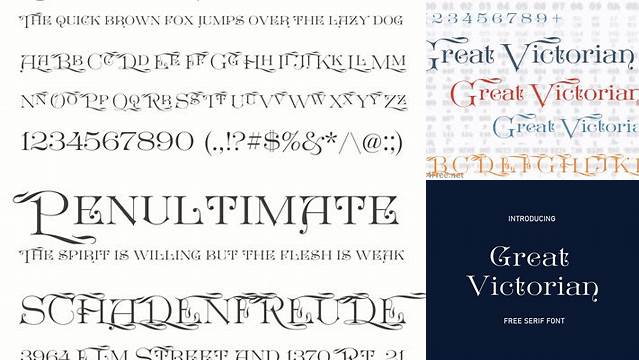
Victorian Font: Free Downloads For Your Designs
Hey guys! Are you looking to add a touch of vintage elegance to your projects? Look no further! The world of Victorian fonts is rich with ornate details and timeless charm. In this article, we'll dive deep into where you can find great Victorian fonts for free download, how to use them effectively, and explore the history and characteristics that make them so captivating. So, grab your tea, settle in, and let’s get started!
1. Understanding the Victorian Font Style
Victorian fonts, with their elaborate flourishes and intricate designs, are a hallmark of the Victorian era (1837-1901). To truly appreciate and effectively use Victorian fonts, it's crucial to understand their origins and stylistic characteristics. These fonts weren't just about looking fancy; they were a reflection of the era's values – a time of industrial progress, social change, and artistic innovation. The Victorian era was all about embellishment and grandeur, and this aesthetic heavily influenced typography. Victorian fonts often feature high contrast between thick and thin strokes, elaborate serifs, and a general sense of ornate detail. Think of it as the typographic equivalent of a beautifully decorated Victorian parlor! Understanding these elements will help you choose the right font for your project and use it in a way that truly captures the Victorian spirit. When you're using Victorian fonts, consider the context. These fonts work wonders for vintage-themed designs, invitations, or anything that needs a touch of old-world charm. However, they can be overwhelming if overused or paired with overly modern elements. Balance is key! A little bit of Victorian flair can go a long way in making your design stand out. In essence, understanding the stylistic nuances of Victorian fonts allows you to wield their power effectively, ensuring your designs are not only beautiful but also historically informed.
3. Key Characteristics of Victorian Typography
Victorian typography is instantly recognizable by its elaborate and decorative style, a true reflection of the era's penchant for ornamentation and detail. Understanding the key characteristics of Victorian fonts will not only help you identify them but also enable you to use them effectively in your design projects. One of the most prominent features is the high contrast between thick and thin strokes within each letterform. This contrast adds visual interest and a touch of drama, making the fonts stand out. Another hallmark is the use of elaborate serifs – the small decorative strokes at the ends of letterforms. Victorian fonts often feature serifs that are curved, bracketed, and highly embellished, contributing to their ornate appearance. The overall aesthetic leans towards a sense of grandeur and formality, making these fonts ideal for projects that need a vintage or elegant feel. You'll also notice that many Victorian fonts incorporate intricate details, such as swashes, ligatures, and decorative elements within the letters themselves. These details add a layer of complexity and sophistication. In terms of structure, Victorian typefaces often have a tall x-height (the height of lowercase letters) and a relatively narrow width, which contributes to their vertical emphasis and elegant posture. When choosing a Victorian font, consider these characteristics and how they align with your design goals. Are you aiming for a bold statement, or a subtle nod to the past? Understanding the nuances of Victorian typography will help you make informed choices and create designs that truly capture the essence of the era.
4. Best Uses for Victorian Fonts
Victorian fonts, with their ornate and elegant style, aren't just pretty faces; they're incredibly versatile when used in the right context. Knowing the best uses for these fonts can help you create designs that are both visually stunning and conceptually appropriate. One of the most common and effective applications for Victorian fonts is in vintage-themed designs. Whether you're working on a poster for a historical event, a label for a craft beverage, or an invitation to a vintage-inspired wedding, a Victorian font can instantly transport your audience to another era. The intricate details and elegant flourishes evoke a sense of nostalgia and sophistication, making them perfect for projects that aim to capture the past. Another great use case is in branding for businesses that want to project a sense of tradition, craftsmanship, or luxury. Think of a high-end boutique, a traditional barber shop, or a artisanal bakery – a carefully chosen Victorian font can communicate the brand's commitment to quality and attention to detail. Invitations, particularly for formal events like weddings or galas, are another ideal application. The elegance and formality of Victorian fonts add a touch of class and sophistication, setting the tone for a special occasion. However, it's important to use these fonts judiciously. Due to their ornate nature, they're best suited for headlines or short bursts of text, rather than large blocks of body copy. Overusing a Victorian font can make your design look cluttered and overwhelming. So, when you're considering a Victorian font, think about the message you want to convey and whether its unique style aligns with your overall design goals.
5. How to Pair Victorian Fonts with Modern Designs
Pairing Victorian fonts with modern designs might seem like mixing oil and water, but when done right, it can create a stunning and unique visual contrast. The key is to strike a balance between the ornate elegance of the Victorian font and the clean simplicity of modern design elements. Think of it as a typographic dance – one partner leads, and the other complements. One effective strategy is to use a Victorian font sparingly, as a headline or for a logo, and then pair it with a clean, sans-serif font for the body text. This approach allows the Victorian typeface to shine without overwhelming the overall design. The sans-serif font provides a sense of modernity and readability, while the Victorian font adds a touch of vintage charm. Another technique is to use color and layout to create visual harmony. For instance, you might use a bold color palette to modernize a design that incorporates a Victorian font, or use plenty of white space to give the ornate typeface room to breathe. Consider the weight and scale of the fonts you're pairing. A heavy, decorative Victorian font might pair well with a lighter-weight sans-serif, while a more delicate Victorian typeface could be balanced with a bolder modern font. Experiment with different combinations and see what works best for your project. The goal is to create a visual hierarchy that is both interesting and easy to read. Ultimately, the success of pairing Victorian fonts with modern designs lies in finding the right balance and creating a cohesive visual narrative. Don't be afraid to experiment and break the rules, but always keep readability and visual harmony in mind.
6. History of Victorian Typography
The history of Victorian typography is a fascinating journey through a period of immense change and innovation in printing and design. The Victorian era (1837-1901) was a time of industrial revolution, social upheaval, and artistic experimentation, all of which heavily influenced the development of typefaces. During this period, the printing industry saw significant advancements, including the invention of the steam-powered printing press and new typesetting technologies. These innovations made it possible to produce printed materials on a much larger scale and at a lower cost, leading to a boom in advertising and commercial printing. This, in turn, fueled the demand for new and exciting typefaces. Victorian fonts emerged as a response to this demand, characterized by their ornate designs, elaborate serifs, and high contrast between thick and thin strokes. They were designed to grab attention and convey a sense of elegance and sophistication, making them ideal for advertising posters, packaging, and decorative printing. The Victorian era also saw the rise of display typefaces, which were designed for headlines and large-format printing. These fonts often featured even more elaborate embellishments and decorative elements than traditional text faces. The influence of Victorian typography extended beyond the printed page, impacting other design disciplines, such as architecture, interior design, and fashion. The ornate and decorative aesthetic of the era permeated all aspects of visual culture. Understanding the historical context of Victorian fonts can help you appreciate their unique character and use them effectively in your designs. These typefaces are not just decorative; they are a reflection of a specific time and place, and they carry with them a rich cultural heritage.
7. Free vs. Premium Victorian Fonts: Which to Choose?
When it comes to choosing Victorian fonts, you'll quickly encounter the age-old question: free or premium? Both options have their pros and cons, and the best choice for you will depend on your specific needs and budget. Free Victorian fonts are a great option if you're just starting out, working on personal projects, or have a limited budget. There are many excellent free fonts available online, as we've discussed, that can add a touch of vintage elegance to your designs. However, it's important to be aware of the limitations. Free fonts may not always be as polished or complete as premium fonts. They might have fewer glyphs (characters), limited language support, or inconsistencies in design. Additionally, free fonts often come with licensing restrictions, typically allowing only personal use. If you plan to use the font for commercial projects, you may need to purchase a license. Premium Victorian fonts, on the other hand, offer several advantages. They are typically created by professional type designers and undergo rigorous testing to ensure quality and consistency. Premium fonts often include a full character set, multiple weights and styles, and extensive language support. They also come with a commercial license, allowing you to use them in your client work and other for-profit projects. The investment in a premium Victorian font can pay off in the long run, especially if you plan to use it frequently or need a typeface that projects a high level of professionalism. Ultimately, the decision of whether to choose a free or premium font depends on your individual needs and circumstances. If you're on a tight budget, a free font might be the perfect solution. But if you need a top-quality typeface with full features and a commercial license, a premium font is likely the better choice.
9. Using Victorian Fonts in Graphic Design Projects
Victorian fonts can be a fantastic addition to your graphic design toolkit, adding a touch of elegance and historical flair to your projects. However, like any design element, they need to be used thoughtfully and strategically. When incorporating Victorian fonts into your designs, consider the overall tone and message you want to convey. These fonts are best suited for projects that evoke a sense of tradition, luxury, or nostalgia. Think of vintage-inspired posters, wedding invitations, product packaging for artisanal goods, or branding for businesses with a classic aesthetic. One of the key principles of using Victorian fonts effectively is restraint. Due to their ornate nature, they can quickly become overwhelming if overused. It's generally best to use them sparingly, for headlines, titles, or logos, and pair them with simpler, more readable fonts for body text. This creates a visual hierarchy and ensures that your message remains clear. When selecting a Victorian typeface, pay attention to its specific characteristics. Some Victorian fonts are more formal and elegant, while others have a more playful or whimsical feel. Choose a font that aligns with the overall style of your design. Also, consider the color palette and other design elements you're using. Victorian fonts often pair well with rich, muted colors, such as deep reds, blues, and greens, as well as gold or copper accents. Using the right colors can enhance the vintage feel and create a cohesive design. Don't be afraid to experiment with different combinations and techniques, but always keep readability and visual harmony in mind. A well-chosen Victorian font, used thoughtfully, can elevate your graphic designs and make them truly stand out.
10. Victorian Fonts for Logos and Branding
If you're aiming for a brand identity that exudes timeless elegance, sophistication, or a touch of old-world charm, then Victorian fonts can be a powerful tool in your logo and branding efforts. These fonts, with their ornate details and distinctive character, can instantly convey a sense of history, craftsmanship, and attention to detail. When using Victorian fonts for logos, it's crucial to choose a typeface that aligns with your brand's personality and values. A delicate, script-style Victorian font might be perfect for a high-end boutique or a luxury brand, while a bolder, more decorative typeface could work well for a traditional barbershop or a craft brewery. Consider the legibility of the font at different sizes. Logos need to be scalable, so your chosen Victorian typeface should be clear and readable even when it's small. You might need to make slight adjustments to the font or the logo design to ensure optimal readability. Think about the overall aesthetic of your brand and how the Victorian font will fit in with other design elements, such as colors, imagery, and layout. A cohesive brand identity is essential for creating a strong and memorable impression. Don't be afraid to pair a Victorian font with a more modern typeface for your body text or other branding materials. This can create a striking contrast and prevent the Victorian font from overwhelming the design. For example, you might use a Victorian font for your logo and headlines, and a clean sans-serif font for your website content and marketing materials. Remember that branding is about more than just aesthetics; it's about communicating your brand's story and values. A well-chosen Victorian font can be a powerful asset in this process, helping you to create a brand identity that is both visually appealing and conceptually resonant.